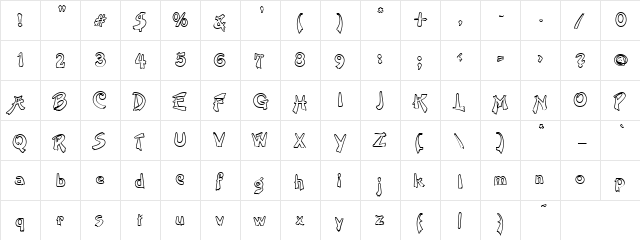
Get Out Regular
Design Context for Get Out Typeface
Get Out is a composed and adaptable typeface that performs quietly and consistently across a wide range of design contexts.